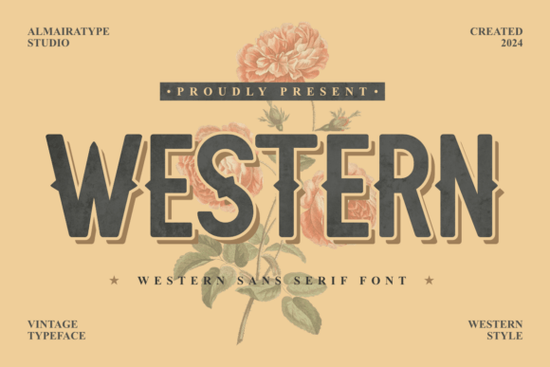
Finding the right typeface for rustic or vintage projects often comes down to balancing character and readability. The Western Font delivers that balance by combining bold, blocky letterforms with a subtle distressed finish. Instead of relying on heavy ornamentation, it uses clean sans serif shapes that carry a rugged, frontier-inspired feel. If you want to review the full file set, visit this specific display page to check licensing details and download options before starting your next layout.
Crafters, print-on-demand sellers, and small business owners often look for lettering that feels authentic rather than overly polished. This particular style works well on apparel mockups, custom signage, and packaging labels where a worn-in aesthetic adds warmth. Because the letters are evenly weighted, they scale cleanly across different sizes, which saves time when adjusting files for t-shirts, posters, or digital banners aimed at creative hobbyists.
What design projects actually benefit from this style?
Vintage branding and rustic decor are the most obvious matches, but the applications extend much further. You will find it useful for brewery logos, outdoor adventure gear, coffee shop menus, and even podcast cover art. The slightly rough edges give digital files a handcrafted quality that pairs naturally with earthy color palettes. Many POD sellers also find it works well with distressed paper textures or halftone patterns, which helps the final mockup look more authentic on marketplace listings.
How do you pair it with other lettering styles?
Balancing a bold display font requires simpler supporting text. A good rule is to match it with a neutral typeface for body copy so the headline remains the focal point. If you prefer a softer contrast, consider browsing through browse these softer, rounded alternatives to create a friendly, approachable pairing for family-friendly or lifestyle brands. For projects that lean toward modern or editorial layouts, a try this streamlined geometric option can keep the design grounded while letting the rustic theme shine in the title.
Which file formats should you use for commercial work?
What spacing and sizing adjustments make it look professional?
The distressed texture already adds visual weight, so tight letter spacing can make short phrases look crowded. Start with a tracking value slightly above default, especially for all-caps headings. Kerning pairs like W-A or T-o often need manual tweaks in vector software to maintain that vintage stamp effect without losing legibility. Keep body text on the same page in a lighter weight and increase the line height to at least one-and-a-half times the font size. These small adjustments prevent the design from feeling heavy on screen or paper.